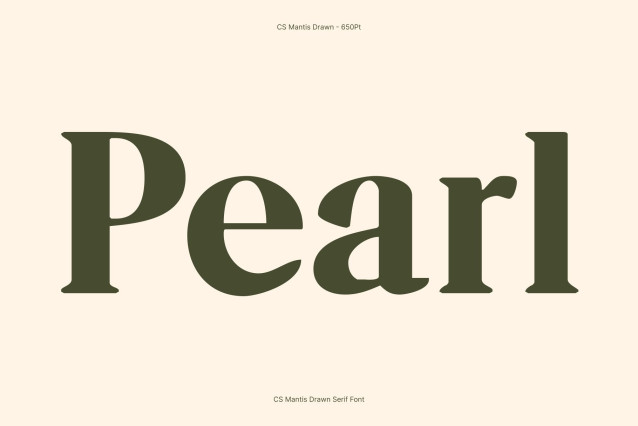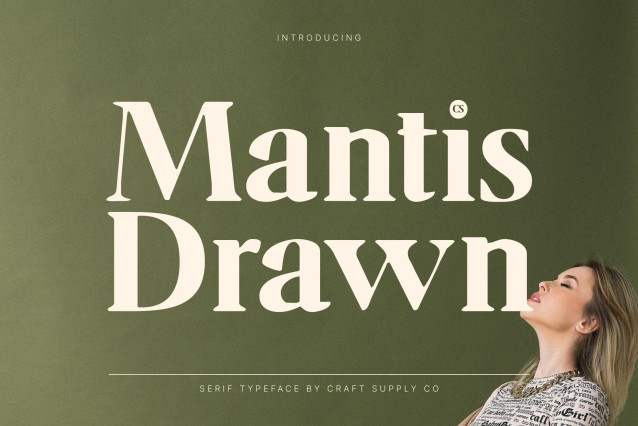
CS Mantis Drawn Font
CS Mantis Drawn Font – This is a contemporary display serif font that blends modern sophistication with classic elegance. Its clean structure is elevated by a subtle drawn effect, giving each letter a distinctive texture and organic character. This handcrafted nuance softens the precision of the serif forms, resulting in typography that feels refined, artistic, and confidently modern.
Elegant Shapes with Expressive Texture
Every curve and serif is carefully designed to project grace and balance. The drawn texture introduces gentle irregularities that enhance visual depth, making the font feel alive and expressive without losing clarity. This balance between sharp precision and handmade warmth creates a classy impression that feels both luxurious and approachable.
Perfect for Logos, Titles, and Editorial Headlines
This font excels in logos, titles, headlines, and high-impact editorial layouts. Its strong serif presence ensures readability and authority, while the drawn details add personality and uniqueness. This makes it ideal for branding, fashion visuals, magazines, and premium creative projects that demand elegance with character.
A Harmonious Fusion of Modernity and Grace
This font redefines modern serif typography by merging timeless class with contemporary expression. Its versatility allows it to perform beautifully across print and digital media. With its poised elegance, artistic texture, and refined structure, this font delivers a sophisticated visual voice that feels enduring, stylish, and unmistakably distinctive.